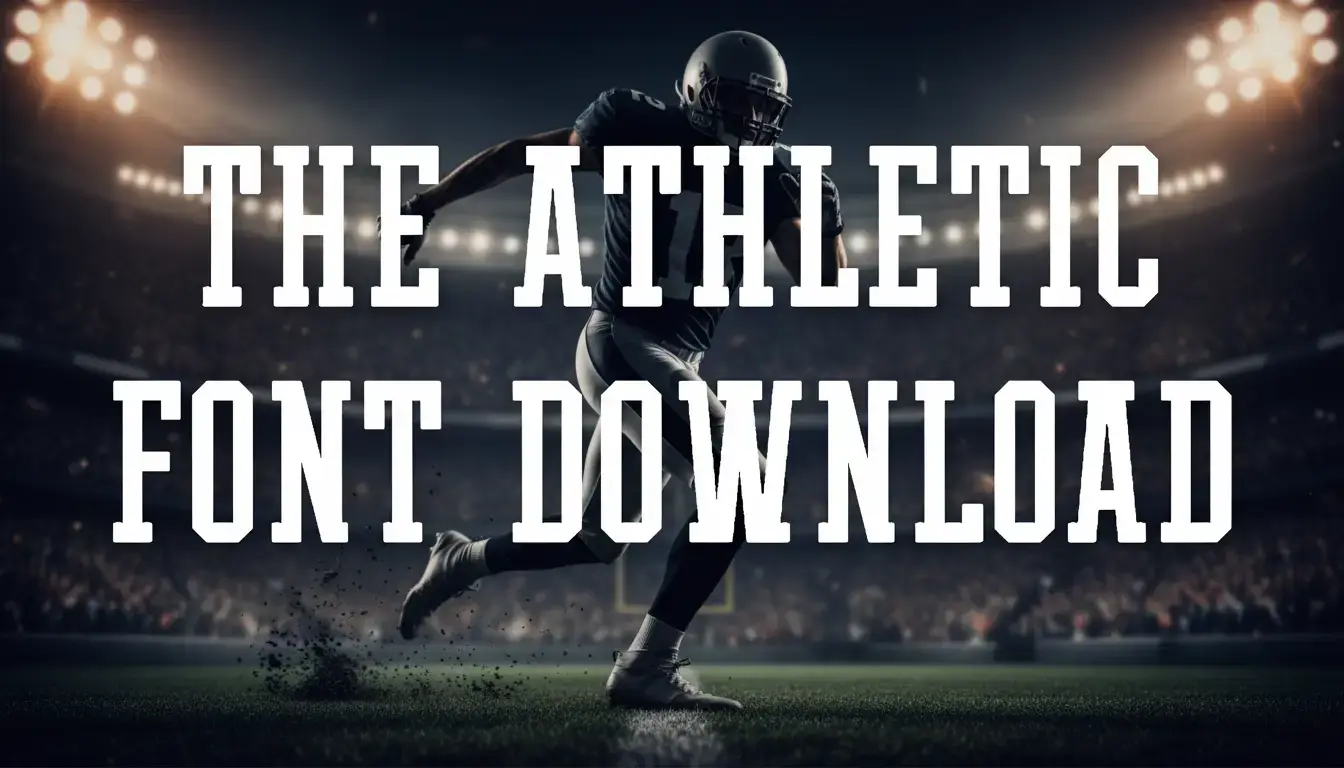
The Athletic Font
The Athletic
The Athletic is a fancy font created by Sven Pels. It's a decorative display font with plenty of personality, made to grab attention. It's a free download, and you can try it with your own text in the preview above first.
What You Can Type With The Athletic
You get every letter from A to Z in both cases and all the numbers from 0 to 9, which means The Athletic can handle full sentences, dates and prices. Common punctuation such as &, !, ? and @ is included as well. It doesn't include accented letters such as é or ñ, which makes it an English-only font.
Where The Athletic Works Best
The Athletic is a natural fit for posters, logos and eye-catching headlines. Use it for one standout word or headline and let simpler fonts handle the rest.
Does The Athletic support accented letters?
No. The Athletic has no accented letters such as é, ñ or ü, so it's best for English text.